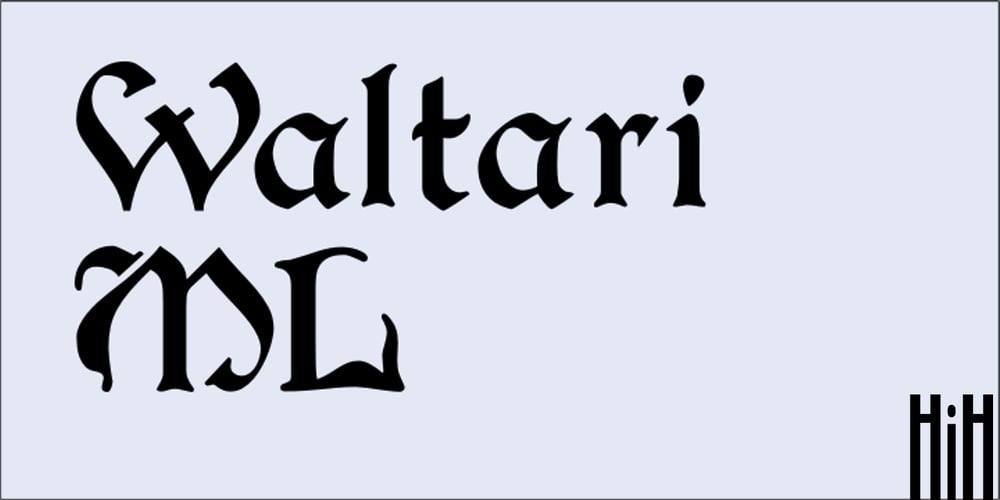
Waltari Font Family was designed by Heinz König and published by HiH. Waltari contains 1 styles and family package options. Designed by Heinz Konig, Waltari was released by the Rudhard’schen Giesserei of Offenbach A.M., Germany in 1900, and reflects all the flamboyant exuberance of that period. Waltari is a Jugendstil rotunda, combining its blackletter roots with a strong Roman influence in an effort to achieve a broader appeal than the traditional forms. As a rotunda, Waltari is easily read by readers who are not comfortable with the schwabachers and frakturs in common use in German printing. Waltari, with its decorative flourishes, has the amazing ability to be both traditional and youthful at the same time. Especially useful for for scrapbooks and invitations. The Waltari ML package includes: 1. Glyphs for ANSI 1250 Central European, 1252 Western Europe, 1254 Turkish and 1257 Baltic code pages. Total 319 glyphs. 2. Total of 472 kerning pairs. 3. OpenType GSUB features: Salt, dlig, hist and ornm. 4. Proportional Numbers 5. Alternate w and z. 6. Original design decorative ornaments The zip package includes two versions of the font at no extra charge. There is an OTF version which is in Open PS (Post Script Type 1) format and a TTF version which is in Open TT (True Type)format. Use whichever works best for your applications.